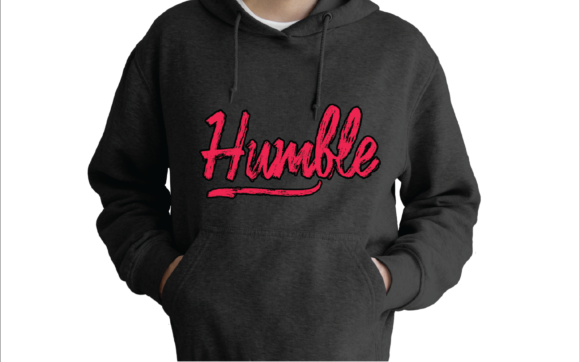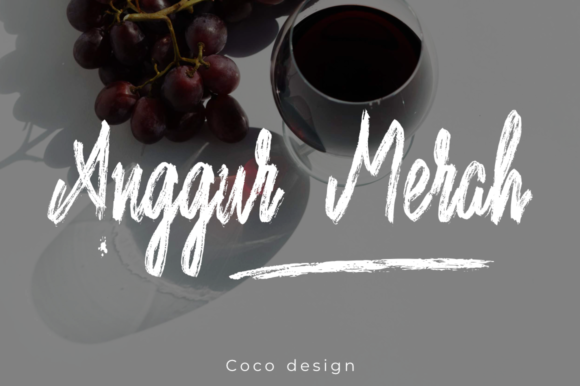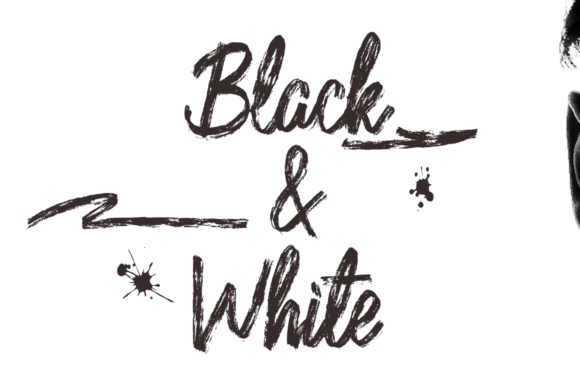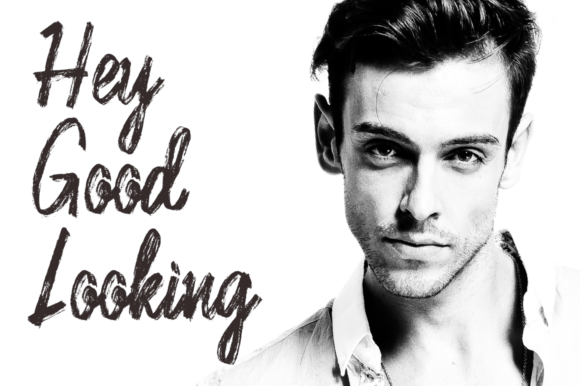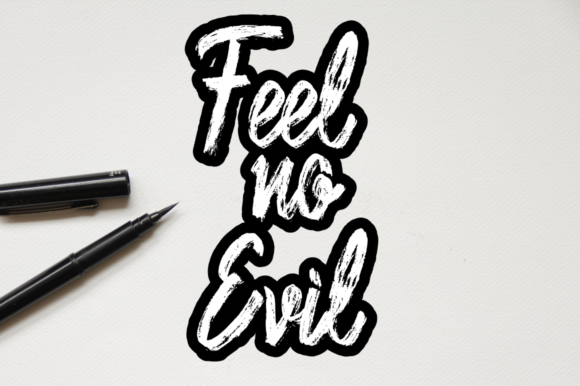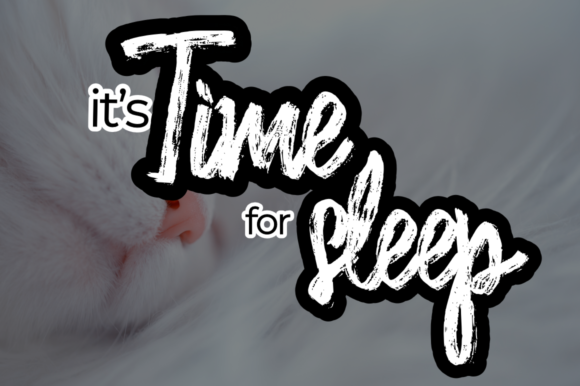
Discover the Elegance of Full Out Font: A Modern Calligraphy Script Brush
Are you a designer or crafter looking for a unique and modern font to elevate your creative projects? Look no further than the Full Out Font, a stunning script brush font designed by handwriting. With its natural writing style and contemporary calligraphy form, this font is sure to add a touch of elegance and sophistication to your designs.
The Story Behind Full Out Font
The Full Out Font was carefully crafted to bring a fresh and modern approach to traditional calligraphy. Its creator, a skilled handwriting artist, poured their heart and soul into designing a font that exudes a sense of naturalness and fluidity. The result is a script brush font that is both visually striking and highly versatile.
Key Features of Full Out Font
- Handwritten with love: Each letter and stroke of the Full Out Font was carefully hand-written to ensure a natural and organic feel.
- Modern calligraphy style: This font boasts a unique and contemporary calligraphy style that is perfect for designers and crafters looking to add a touch of sophistication to their work.
- Script brush effect: The Full Out Font features a beautiful script brush effect that gives it a dynamic and expressive feel.
- Highly versatile: Whether you’re working on a logo, invitation, or social media graphic, the Full Out Font is suitable for a wide range of design projects.
What Makes Full Out Font So Special?
So, what sets the Full Out Font apart from other fonts on the market? For starters, its unique blend of modern calligraphy and natural handwriting style makes it a true standout. The font’s script brush effect adds a level of elegance and refinement, making it perfect for designs that require a touch of sophistication.
How to Use Full Out Font in Your Designs
Using the Full Out Font in your designs is easy! Here are a few ideas to get you started:
- Logos and branding: The Full Out Font is perfect for creating unique and memorable logos that showcase your brand’s personality.
- Invitations and stationery: Add a touch of elegance to your invitations, greeting cards, and other stationery with the Full Out Font.
- Social media graphics: Use the Full Out Font to create eye-catching social media graphics that stand out from the crowd.
- Packaging and labels: The Full Out Font is also great for packaging and labels, adding a touch of sophistication to your product designs.
Tips for Getting the Most Out of Full Out Font
To get the most out of the Full Out Font, here are a few tips to keep in mind:
- Experiment with different colors: The Full Out Font looks great in a variety of colors, so don’t be afraid to experiment and find the perfect hue for your design.
- Play with font sizes: The Full Out Font is highly versatile, so try using it in different font sizes to add visual interest to your design.
- Combine with other fonts: The Full Out Font pairs well with a variety of other fonts, so feel free to experiment with different combinations to find the perfect look for your design.
In conclusion, the Full Out Font is a stunning script brush font that is sure to elevate your designs to the next level. With its modern calligraphy style, natural handwriting feel, and highly versatile design, this font is perfect for designers and crafters looking to add a touch of elegance and sophistication to their work. So why wait? Download the Full Out Font today and start creating beautiful, eye-catching designs that stand out from the crowd!